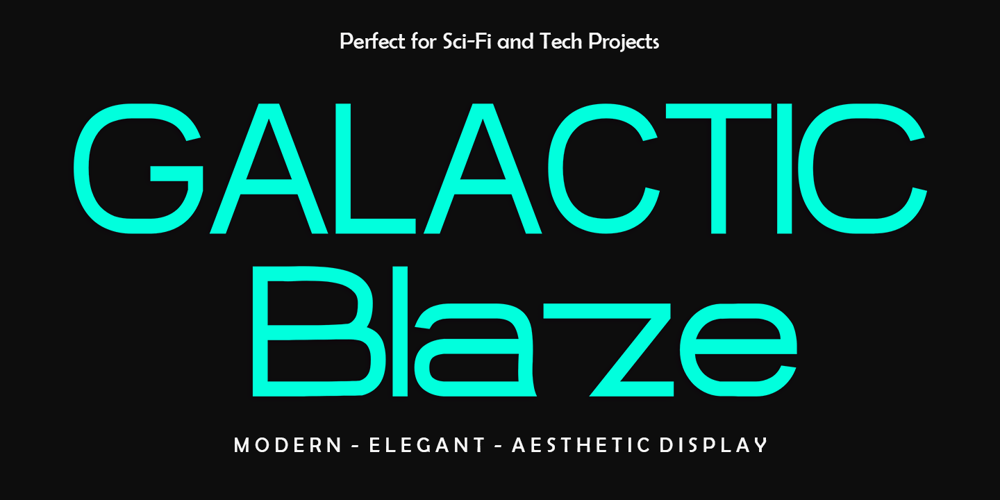
Galactic Blaze
Galactic Blaze Font Family was designed by Teuku Muhammad Zaki and published by Zaki Creative. Galactic Blaze contains 1 styles and family package options. Galactic Blaze is a striking display font that beautifully combines elegance with contemporary flair. With its carefully crafted bold lines, refined curves, and distinct personality, this font is designed to make a lasting impression. Whether you’re working on a logo, headline, poster, or any other project that requires a strong typographic presence, Galactic Blaze is the perfect choice. It’s a versatile typeface that brings both style and clarity to your designs, ensuring that your message is communicated with sophistication and impact. Designed to stand out, Galactic Blaze is ideal for branding, editorial layouts, and high-end advertising, offering a timeless aesthetic that works well across various design applications. Its elegant form makes it suitable for both formal and creative contexts, striking a balance between modern aesthetics and classic design principles. Each letter is meticulously crafted to deliver readability while maintaining a unique character, making it an excellent option for designers who want to create bold, yet sophisticated typographic compositions. Make your designs unforgettable with Galactic Blaze, the font that adds a touch of class and a dash of boldness to every project.